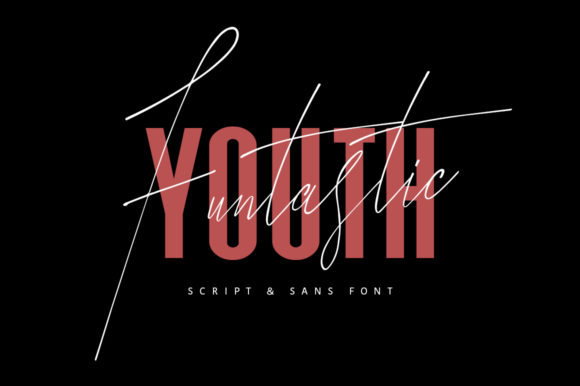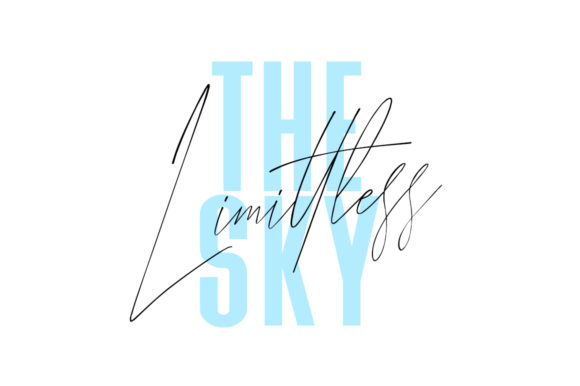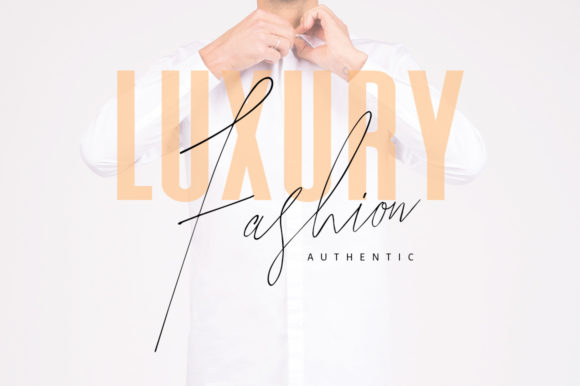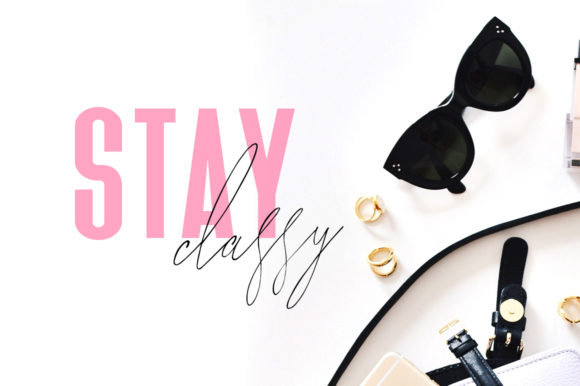
Funtastic Youth Duo Font
About the Funtastic Youth Duo Font
Step up your design game with Funtastic Youth Duo Font, a font that exudes confidence and style. Funtastic Youth is an incredible duo font. It perfectly matches a sans serif with a script. Combine them and give a versatile look to your designs!
This duo excels in branding projects for youthful, energetic brands—think clothing lines, social media campaigns, or playful product packaging. The sans-serif component works well for headlines and short, impactful text, while the script adds a touch of personality to logos and subheadings. Avoid using it for large blocks of body text; the script, in particular, lacks the readability needed for extended reading.
For optimal pairing, consider a clean, geometric sans-serif like Montserrat or a neutral serif like Lato to balance the playful energy of Funtastic Youth. These pairings provide a contrast that allows the script to stand out while maintaining visual harmony. Alternatively, a bolder, more modern sans-serif like Bebas Neue could further amplify the youthful, energetic feel for a high-impact design.
Funtastic Youth possesses a bold, friendly, and modern personality. Its versatility stems from the successful combination of a clean sans-serif and a flowing script, resulting in a dynamic duo ideal for projects that need both a structured and expressive touch.
Funtastic Youth Duo Font Usage Examples
Funtastic Youth Duo Font Example